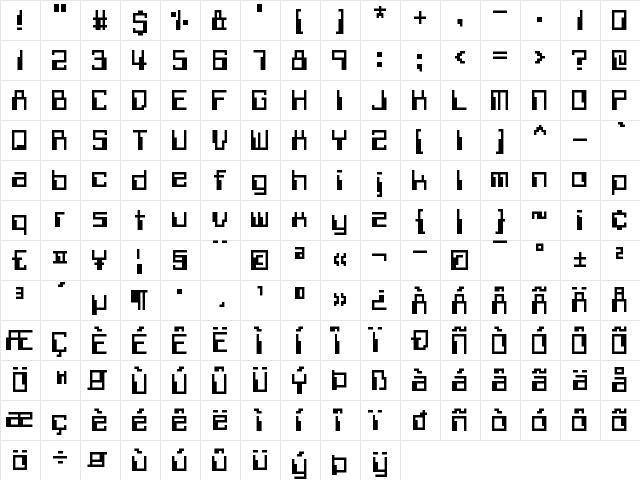
Withheld Data Regular
| Designer | GameDevDan |
Design Context for Withheld Data Typeface
Withheld Data takes a measured approach to typography — its balanced proportions and neutral character make it a reliable workhorse for both digital and print work.